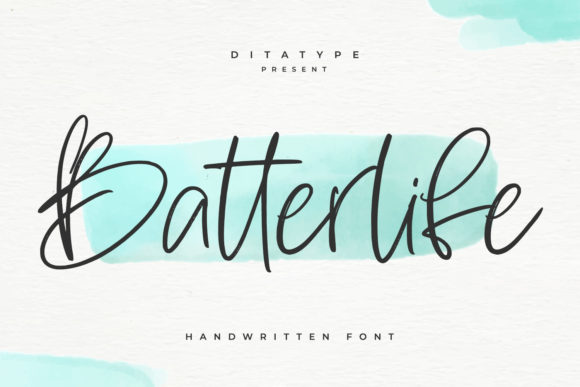
Immerse yourself in the enchanting world of Batterlife Font, a modern script typeface that exudes creativity and charm. Designed by the talented Ditatype, this exquisite font family captivates the senses with its flowing lines, delicate curves, and undeniable elegance.
Journey through a world of boundless possibilities with Batterlife Font, the perfect companion for your creative endeavors. Whether you're crafting logos that leave a lasting impression, designing branding that resonates with your audience, or creating quotes that inspire the soul, this versatile script font is your muse.
With Batterlife Font, you'll discover the art of transforming ordinary words into captivating visual expressions. Its alluring strokes dance across the page, evoking emotions and leaving a trail of beauty in their wake. Let your imagination soar as you explore the endless possibilities of this remarkable font, turning your creative visions into tangible masterpieces.
Elevate your designs with Batterlife Font and watch as your projects take on a new life. Its innate charm and effortless style will captivate your audience, leaving them mesmerized by the beauty of your creations. Embrace the power of typography and unlock the potential that lies within your words.
So, embark on this creative odyssey with Batterlife Font, your trusted companion in the realm of visual storytelling. Experience the joy of creating designs that touch hearts and leave an indelible mark on the world. Let your imagination run free and unleash the boundless creativity that awaits you within the strokes of this enchanting font.